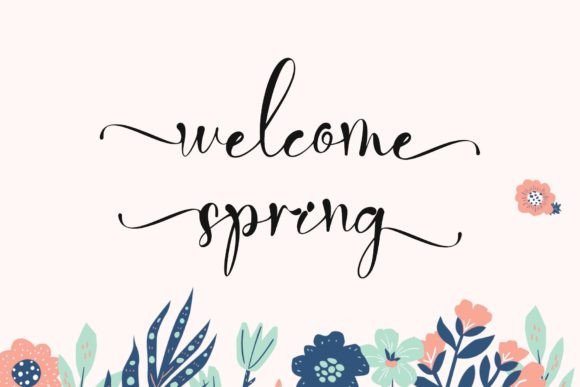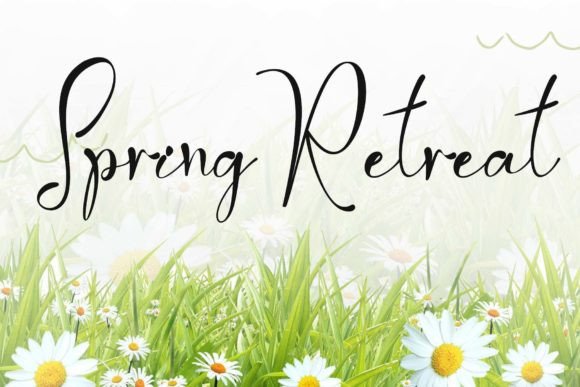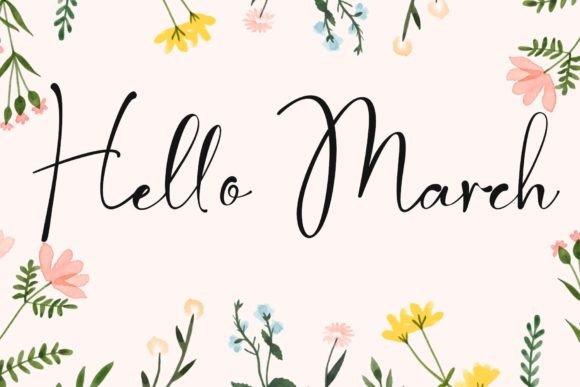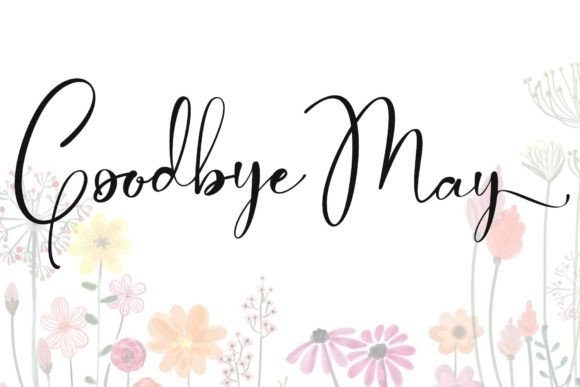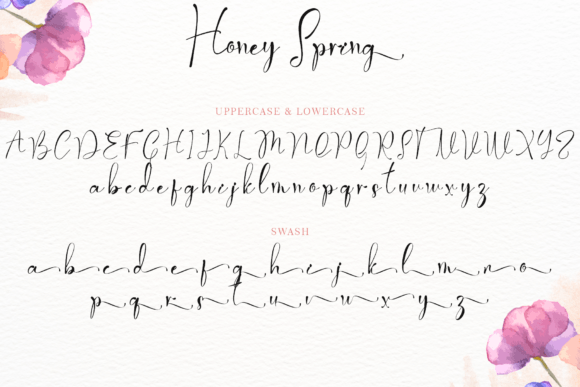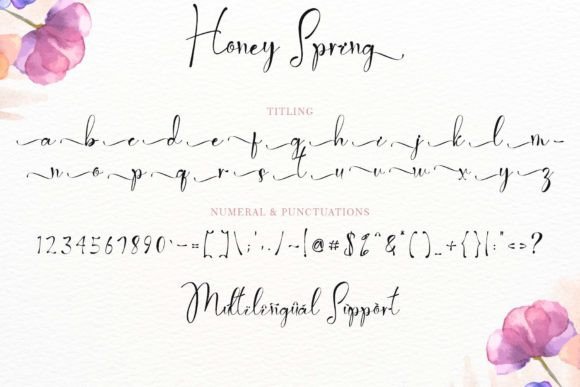
The Art of Typography: Unlocking the Beauty of Honey Spring Font
Have you ever felt that rush of excitement when your creative idea finally takes shape? The blank canvas stares back at you, waiting to be transformed into a masterpiece. For designers, this moment is pure magic. It’s the spark that ignites the creative process, and with the right tools, it can lead to something truly breathtaking.
That’s where Honey Spring Font comes in – a natural and elegant handwritten modern font designed to bring your ideas to life. Perfect for Instagram captions, calligraphy scripts, or DIY projects, Honey Spring Font is the ultimate creative companion. With its PUA encoding, accessing all the glyphs and ligatures is a breeze, making it an invaluable asset for designers.
Honey Spring Font Key Features
- Font Family: Honey Spring Font offers a unique and elegant script font family with various styles.
- Unique Characteristics: The font features intricate, hand-drawn designs, swashes, and ligatures, adding a touch of sophistication to any text.
Honey Spring Font Review
I recently had the chance to work with the Honey Spring Font, and overall, I was quite pleased with its performance. Here are some key takeaways from my experience.
- The font’s playful and whimsical feel is perfect for projects that need a touch of elegance and sophistication.
- The font’s legibility is excellent, making it a great choice for both digital and print applications.
- The font’s weight and size options are well-designed, allowing for a high degree of customization.
- The font may not be the best choice for projects that require a strong, bold font.
- The font’s lack of support for some special characters may be a problem for projects that require a high degree of technical accuracy.
Overall, I would recommend the Honey Spring Font to designers who are looking for a unique and elegant font for their projects. While it may have some limitations, its strengths far outweigh its weaknesses, making it a solid choice for many applications.
Tips for Getting the Most Out of Honey Spring Font
For best results, pair Honey Spring Font with a clean and simple design aesthetic. Use it for headings, titles, and other emphasis text to add a touch of elegance to your designs.
Honey Spring Font is ideal for:
Editorial and magazine design
Wedding and event design
Alternative Font Options to Honey Spring Font
Great Vibes Font is a modern, elegant script font ideal for creating a sophisticated and luxurious feel in your designs. It’s perfect for wedding invitations, event branding, and high-end product packaging. Great Vibes Font is similar to Honey Spring Font in its flowing script style, but it has a more refined and polished appearance.
Alex Brush Font is a handwritten script font with a touch of elegance and sophistication. It’s suitable for creating a personal and intimate feel in your designs, making it perfect for wedding stationery, invitations, and greeting cards. Alex Brush Font is similar to Honey Spring Font in its handwritten style, but it has a more delicate and refined appearance.
Carolyna Pro Font is a luxurious script font with a modern and elegant feel. It’s perfect for creating high-end branding, luxury product packaging, and event invitations. Carolyna Pro Font is similar to Honey Spring Font in its flowing script style, but it has a more dramatic and sophisticated appearance.